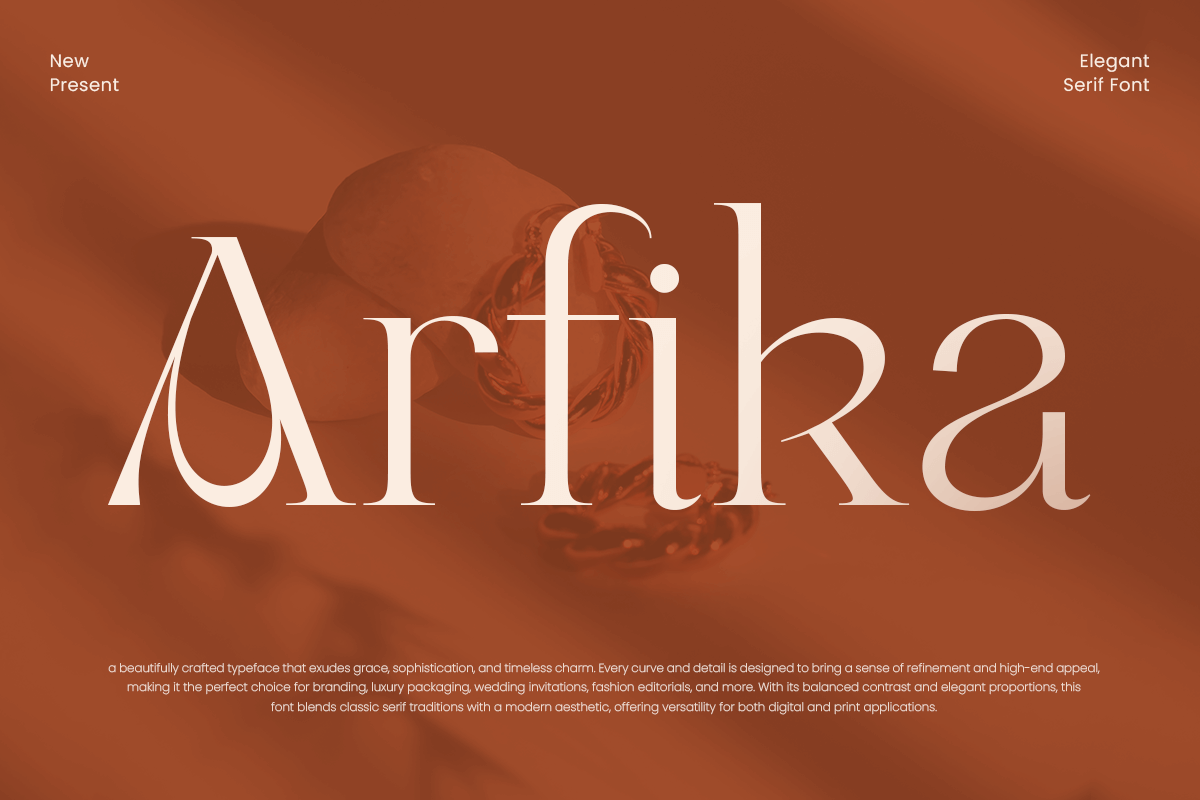
Arfika
-Unique Serif Modern Logo FontArfika - Unique Serif Modern Logo Font
Arfika is an elegant serif lavish luxury font crafted for high-end branding, logos, and exclusive creative projects. Its refined, stylish letterforms provide a polished, professional, and luxurious appearance for premium designs.
Ideal for fashion, lifestyle, editorial, and luxury branding, Arfika combines readability with sophistication, making it perfect for print and digital applications where elegance is a must.
Arfika – Elegant Serif Lavish Luxury Font Features
Elegant and lavish serif character set
Perfect for premium branding, logos, and luxury designs
OpenType features for extra versatility